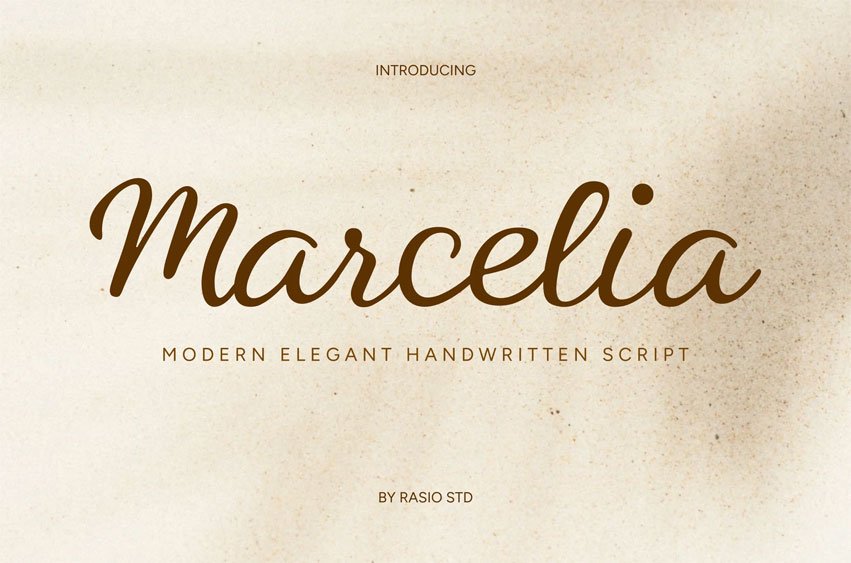
Marcelia Font Elegant Handwritten Script Font brings a touch of sophistication and warmth through its smooth, flowing lines and natural rhythm. Designed with elegance and modern charm, this typeface captures the beauty of cursive handwriting, making every word feel personal and refined.
Relevance and Use Cases is perfect for wedding stationery, invitation cards, feminine branding, beauty product packaging, fashion editorials, and creative quotes that require an elegant and handwritten touch.
Enhance your designs with the graceful beauty of Marcelia Elegant Handwritten Script Font — a timeless cursive typeface that adds charm, warmth, and sophistication to every creative project.